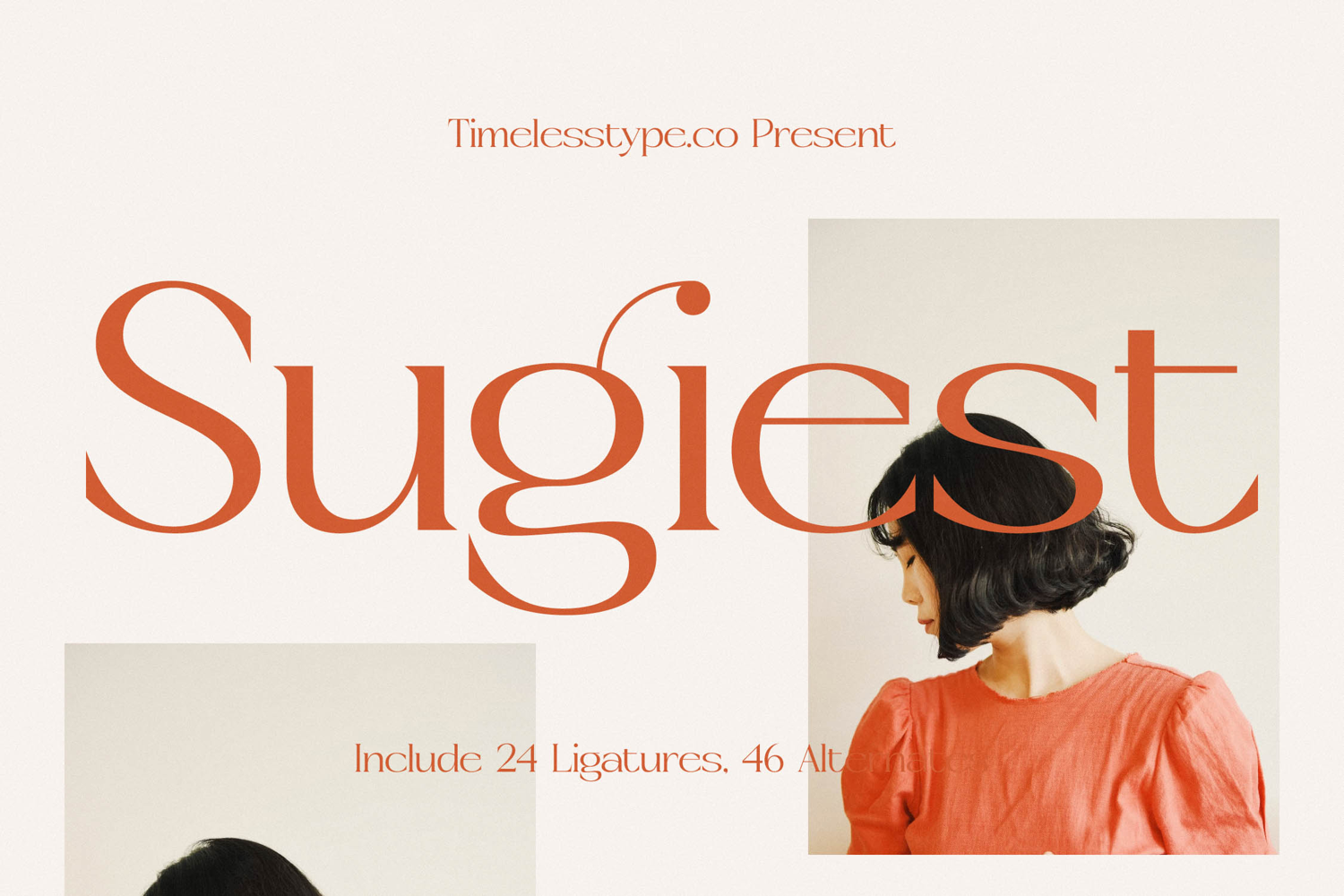
Sugiest - Modern Serif Font
Elevate your design projects with unparalleled elegance and distinction. Introducing Font Sugiest - Modern Serif Font Serif Display, a sophisticated typeface crafted to command attention. Its captivating high-contrast strokes and gracefully refined curves embody a timeless modernity, making it the perfect choice for designs demanding a touch of luxurious appeal. Every character of this modern serif exudes a refined aesthetic, promising to imbue your visuals with an unmistakable sense of class and artistic flair.
Unleash boundless creative potential with its rich typographic features. Font Sugiest - Modern Serif Font Serif Display comes equipped with a comprehensive set of unique ligatures and stylistic alternates, offering designers unparalleled flexibility. These carefully designed additions allow for truly bespoke text arrangements, transforming ordinary headlines into works of art and ensuring your branding stands out with captivating originality and typographic artistry.
Expand your global reach with seamless linguistic adaptability. With its extensive multilingual support, Font Sugiest - Modern Serif Font Serif Display adapts seamlessly across global markets, making it incredibly versatile for international projects. This ensures your message resonates clearly and beautifully, regardless of language, establishing a consistent and professional brand identity worldwide.
Perfectly suited for an array of prestigious applications. Font Sugiest - Modern Serif Font Serif Display is an indispensable asset for luxury branding, high-end product packaging, fashion editorials, magazine layouts, and elegant invitations. Its commanding presence and refined structure make it ideal for any design where impactful communication and sophisticated visual appeal are paramount, guaranteeing your work achieves maximum aesthetic value.